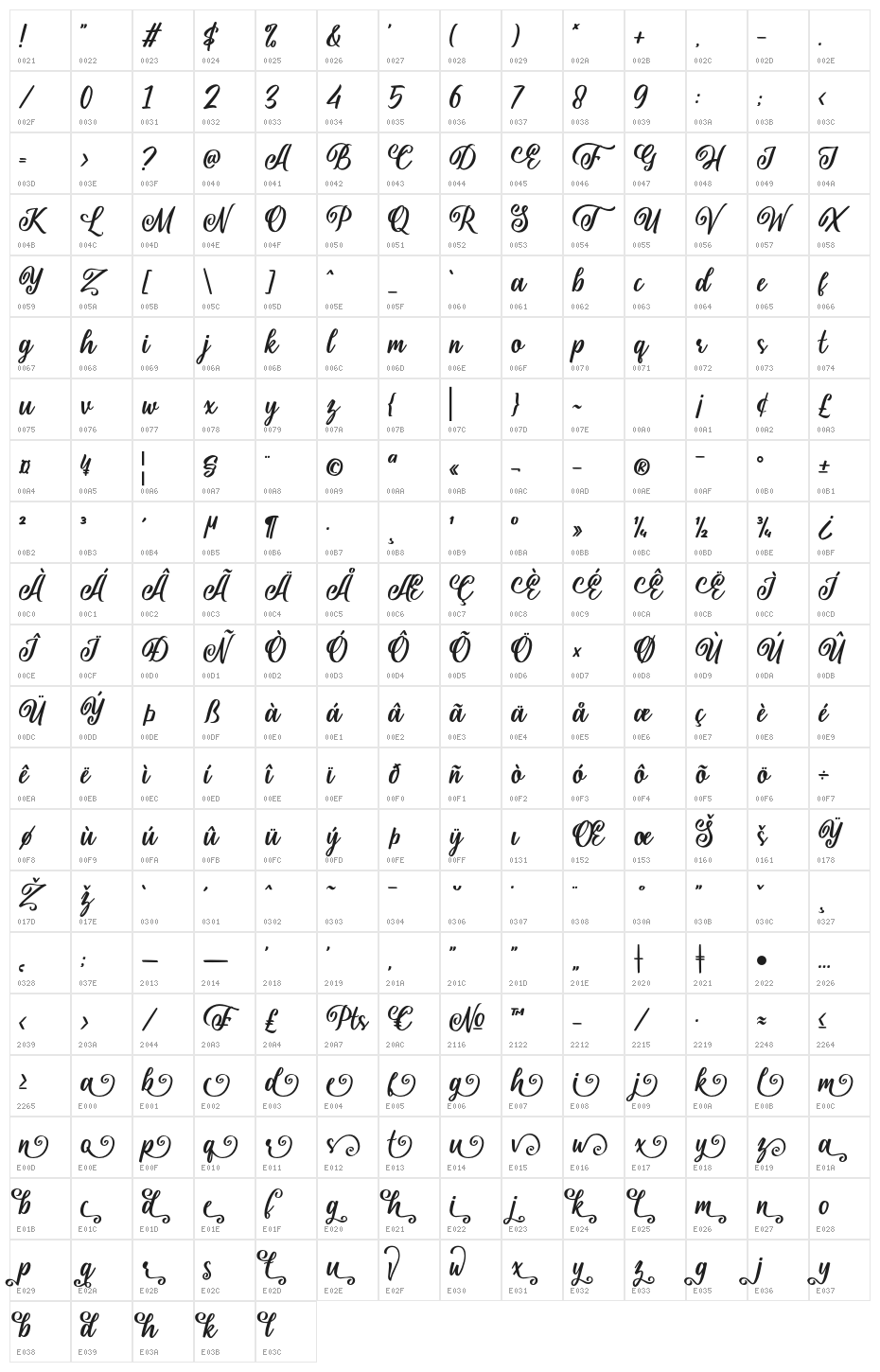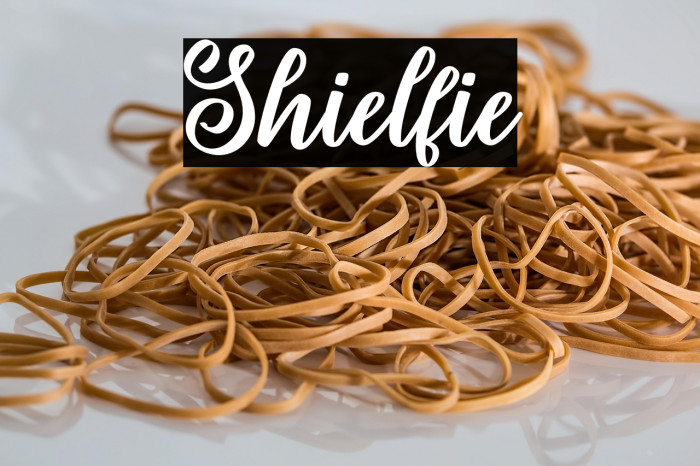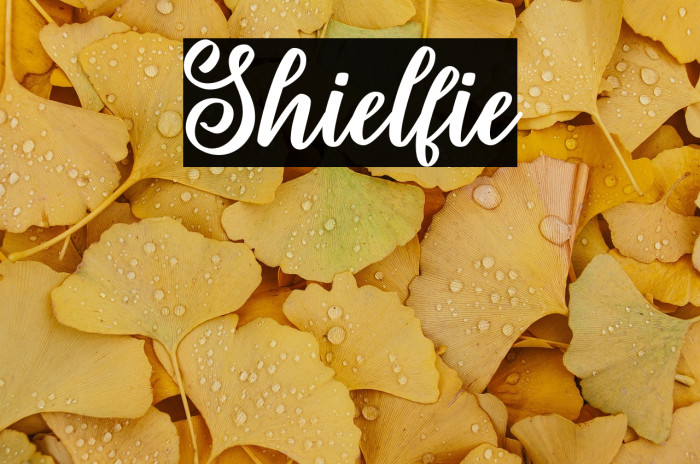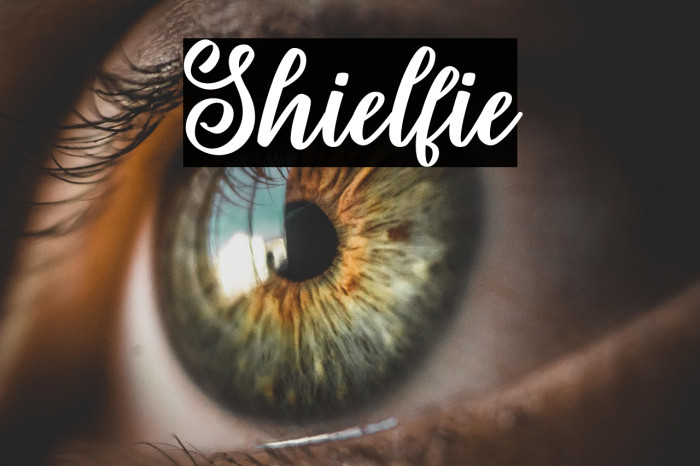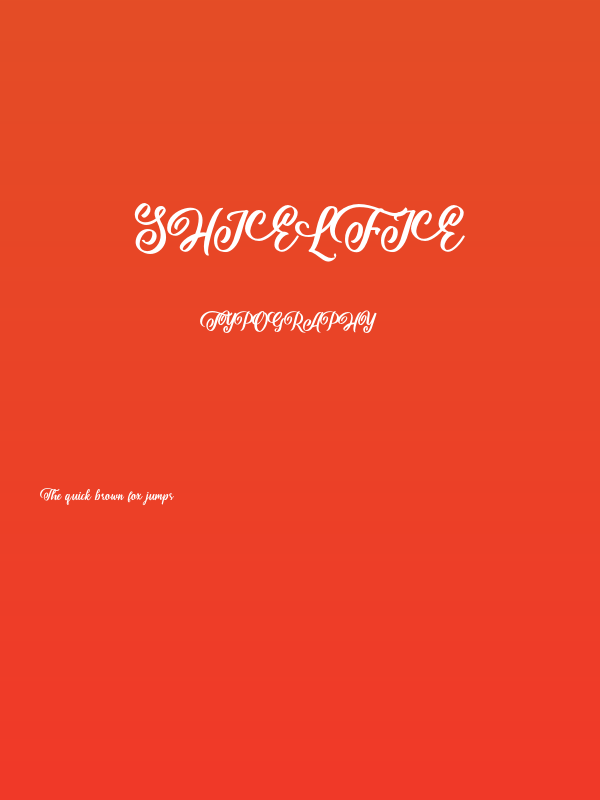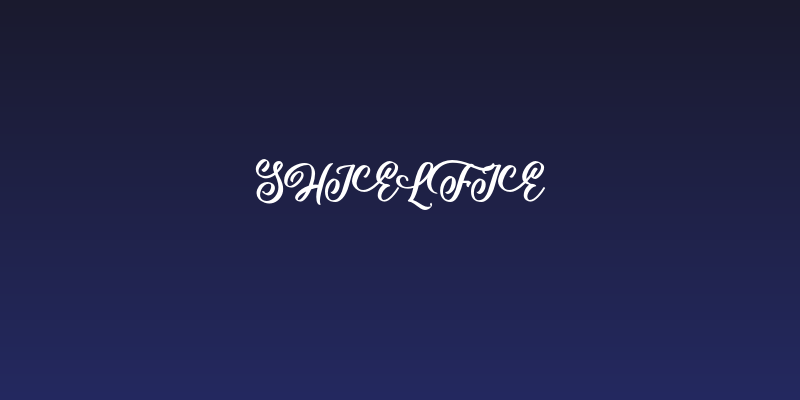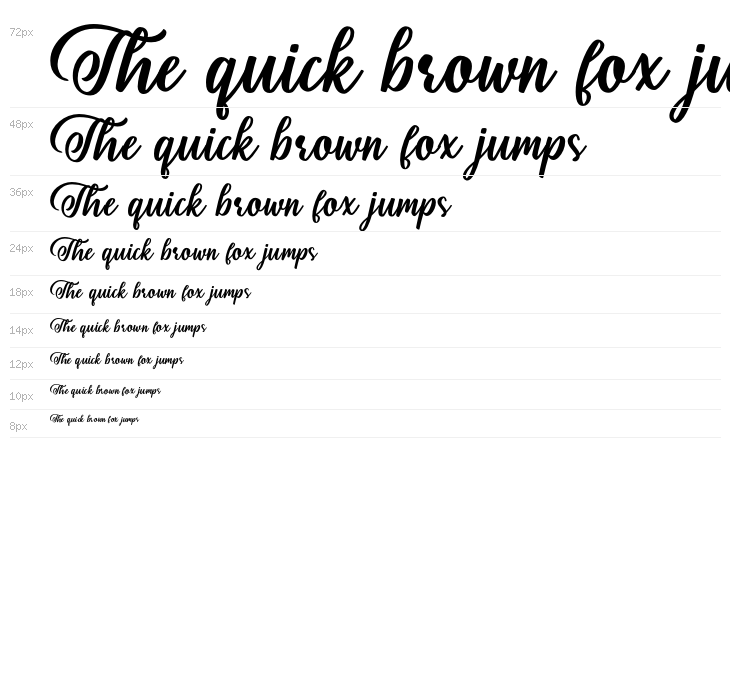
Shielfie Font
Shielfie Description
This font features an elegant and flowing script style, characterized by its smooth, cursive letterforms that convey a sense of sophistication and grace. The uppercase letters are particularly ornate, with intricate loops and flourishes that add a decorative touch. The lowercase letters maintain a consistent flow, enhancing readability while retaining the font's stylish appearance. The numerals are bold and slightly slanted, matching the overall aesthetic of the alphabet. Special characters are designed with the same attention to detail, ensuring a cohesive look across all glyphs. This font is ideal for projects that require a touch of elegance and personality.
| Overall Style | Elegant, Decorative |
| Proposed Projects | Ideal for wedding invitations, elegant branding, greeting cards, and luxury product packaging. |